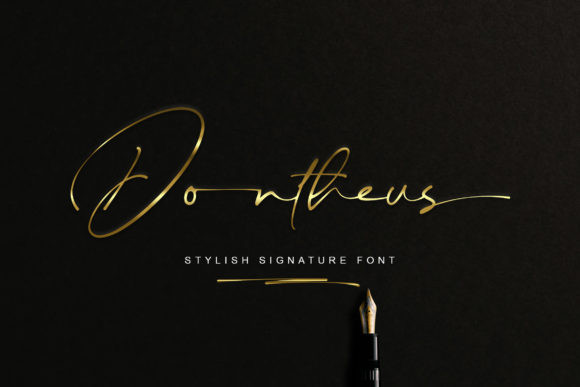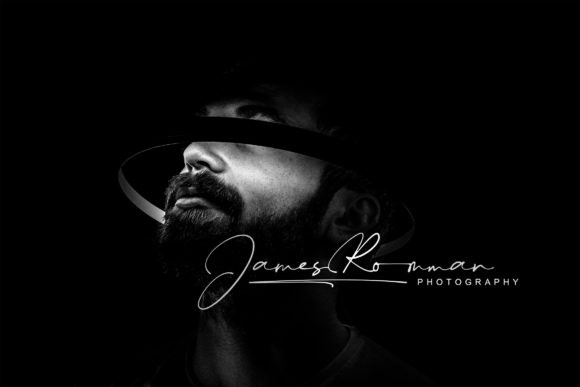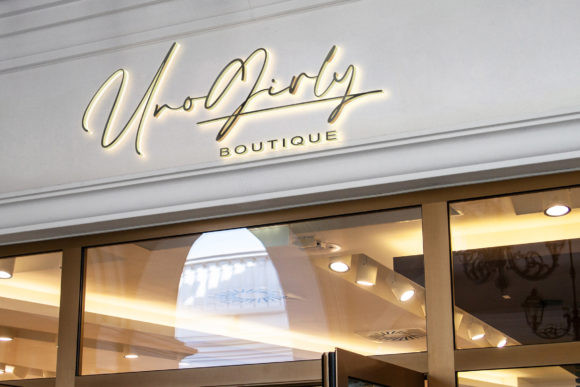
Dontheus Font
Dontheus is a stylish script font, featuring a lovely flow. It has a clean, thin and smooth vibe and it will be a hit for any design that you want to add it to. This font is PUA encoded which means you can access all of the glyphs and swashes with ease!